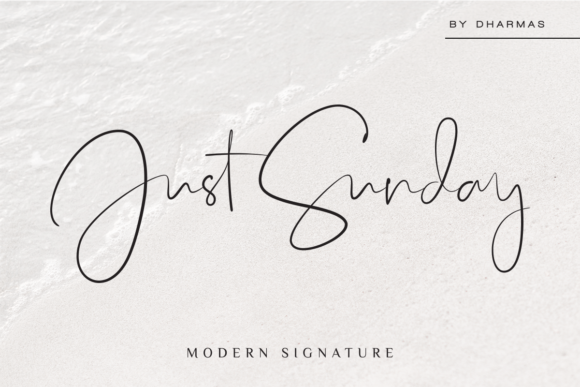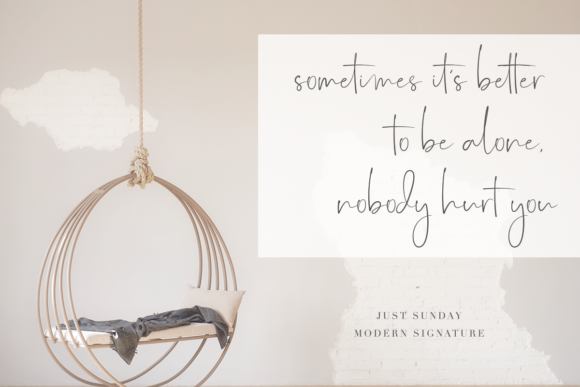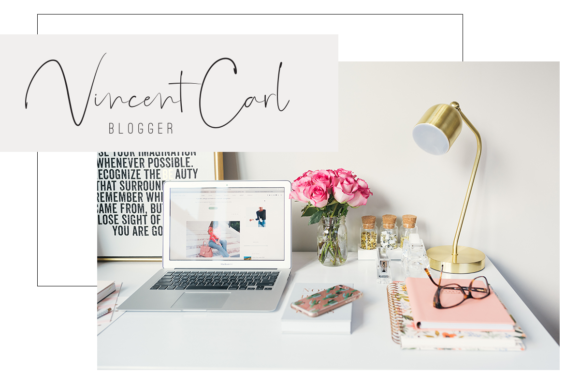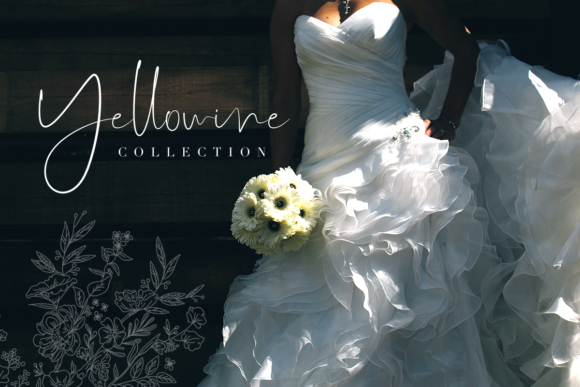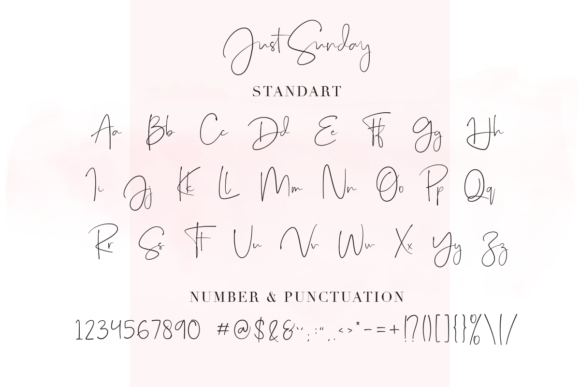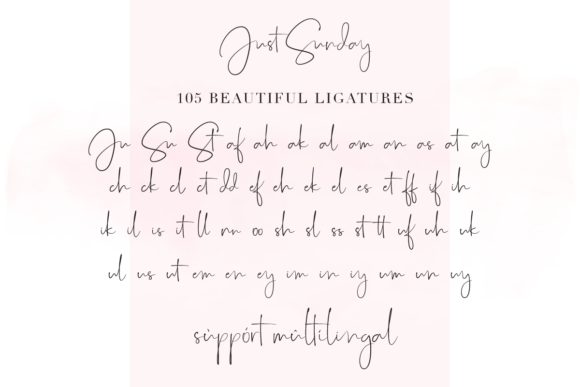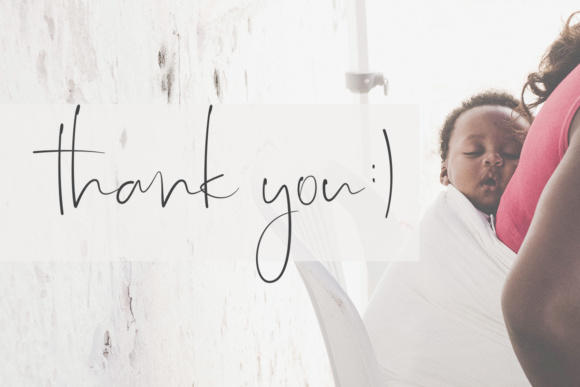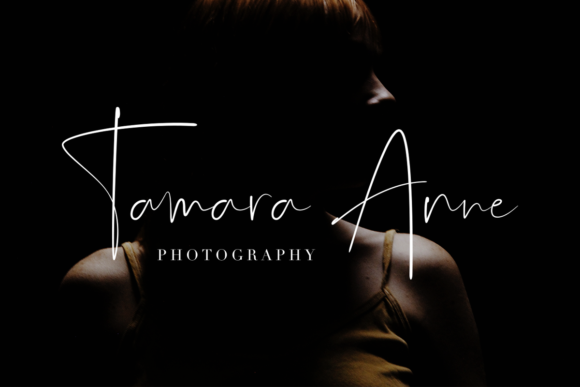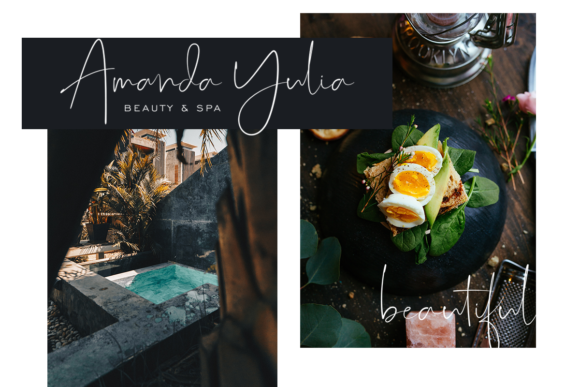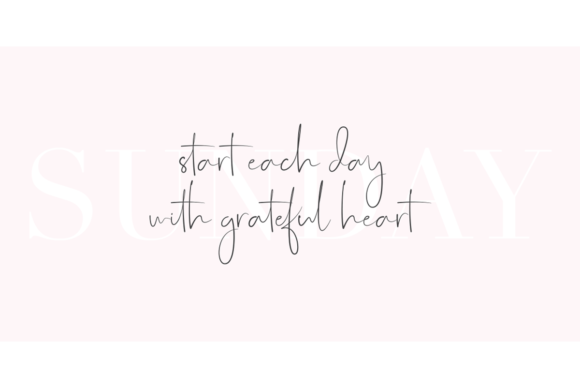
Just Sunday Font
About Just Sunday Font
Just Sunday is a modern, feminine font. Every single letter has been carefully crafted to make your text look beautiful. With it’s modern script style, Just Sunday is perfect for many different projects such as: logos, photography, watermarks, quotes, blog headers, posters, and much more!
Just Sunday has a smooth wet ink texture, so it’s perfect for all types of printing techniques + you can do embroidery, laser cut, gold foil etc.